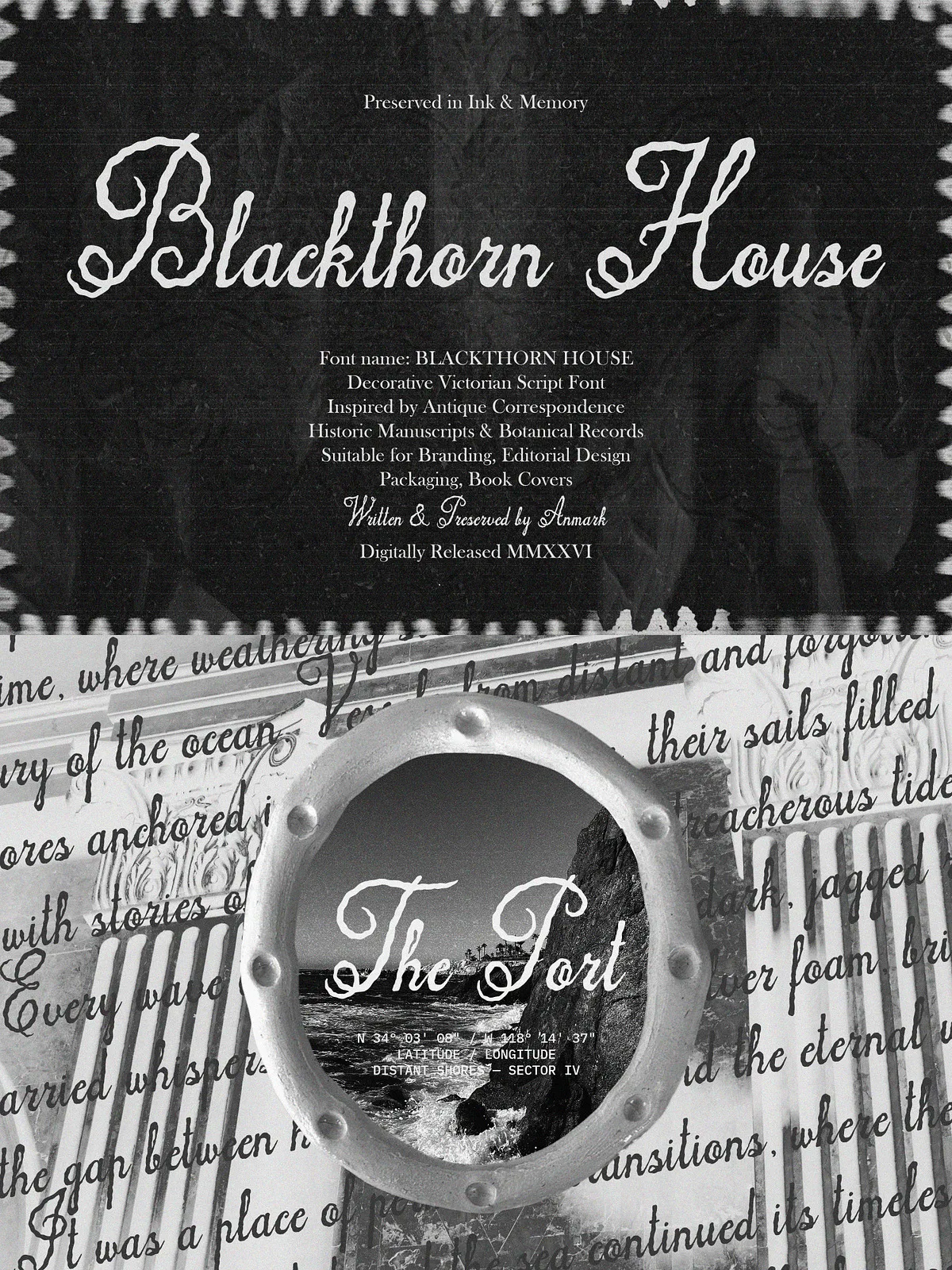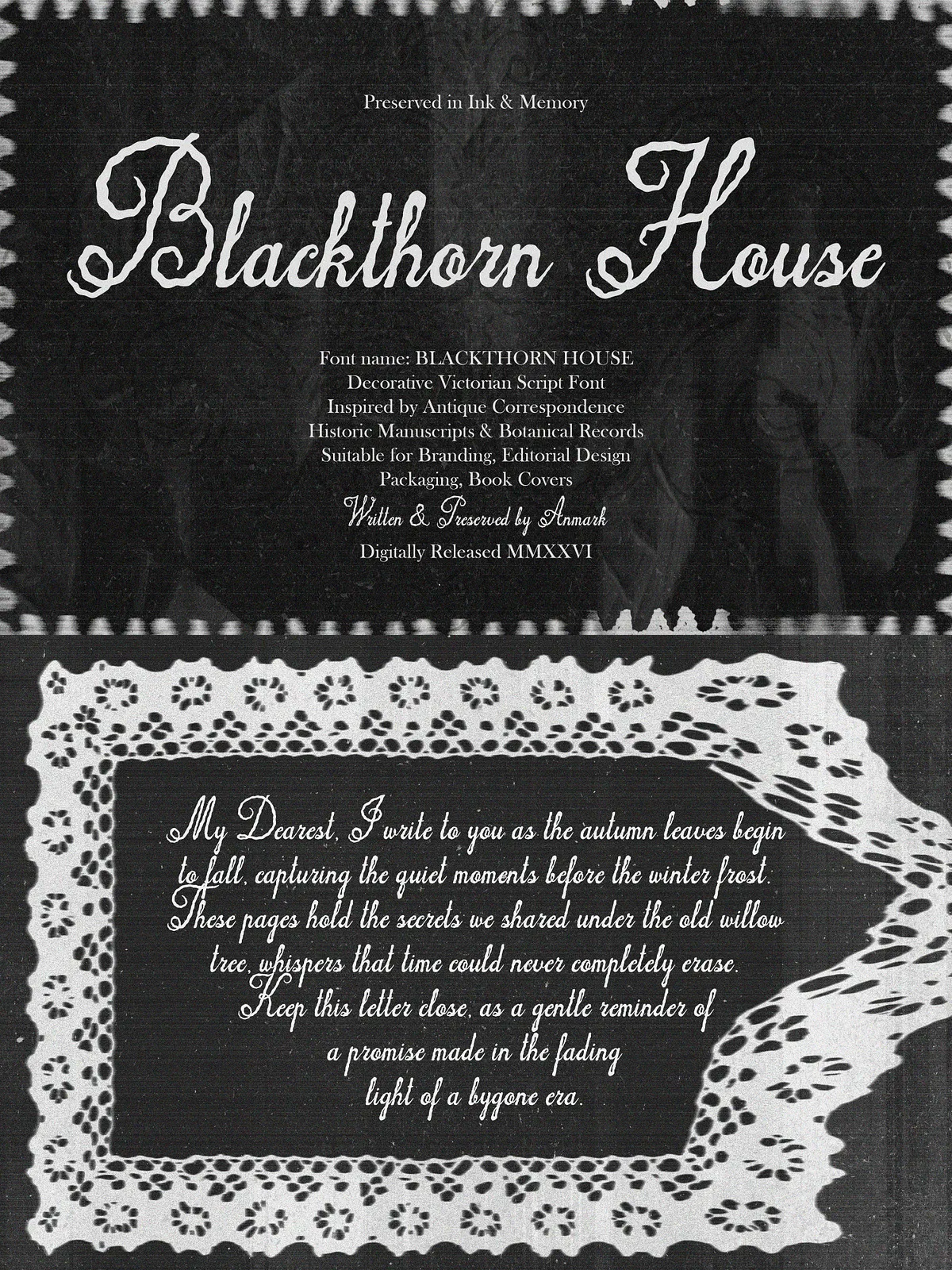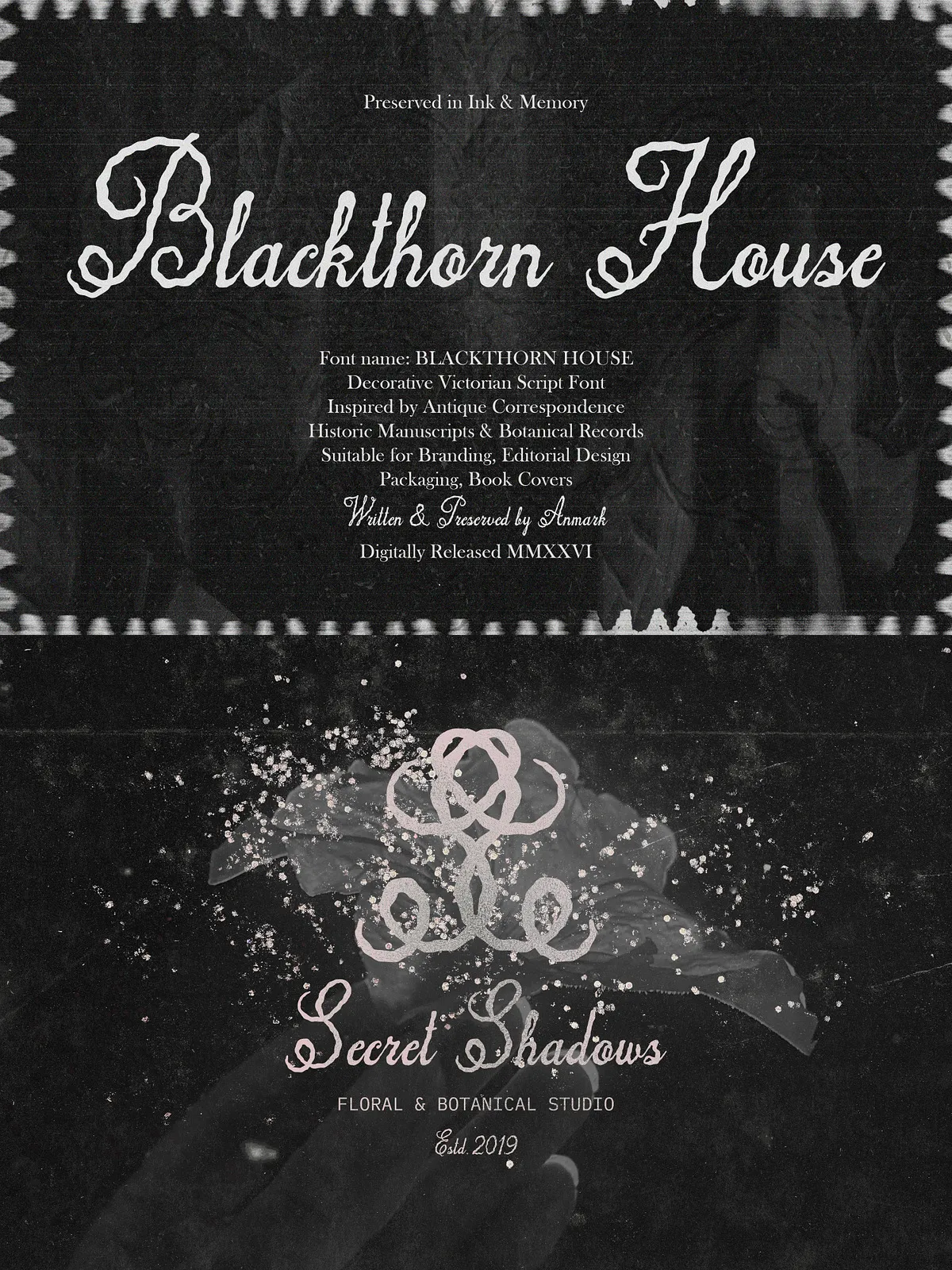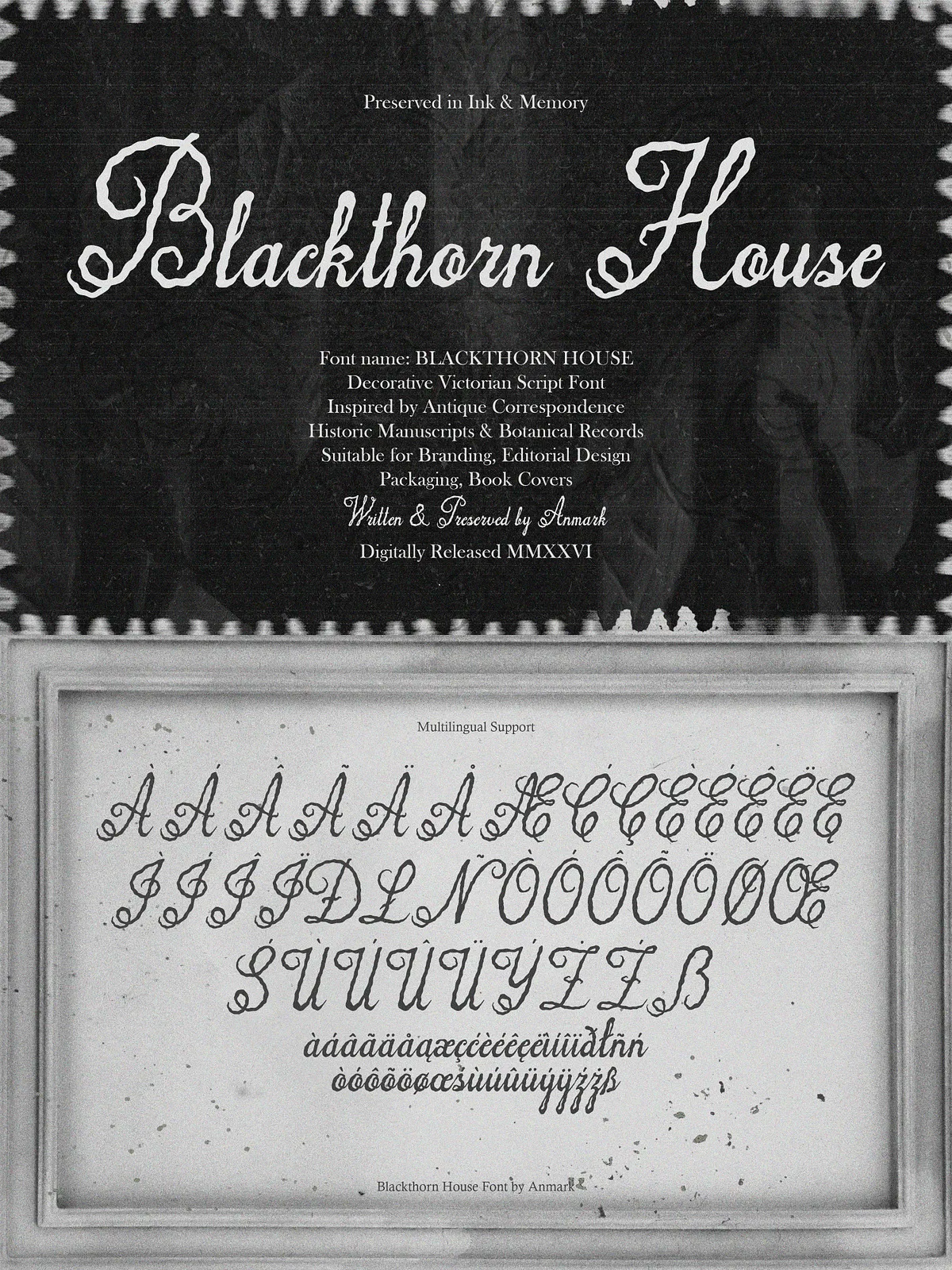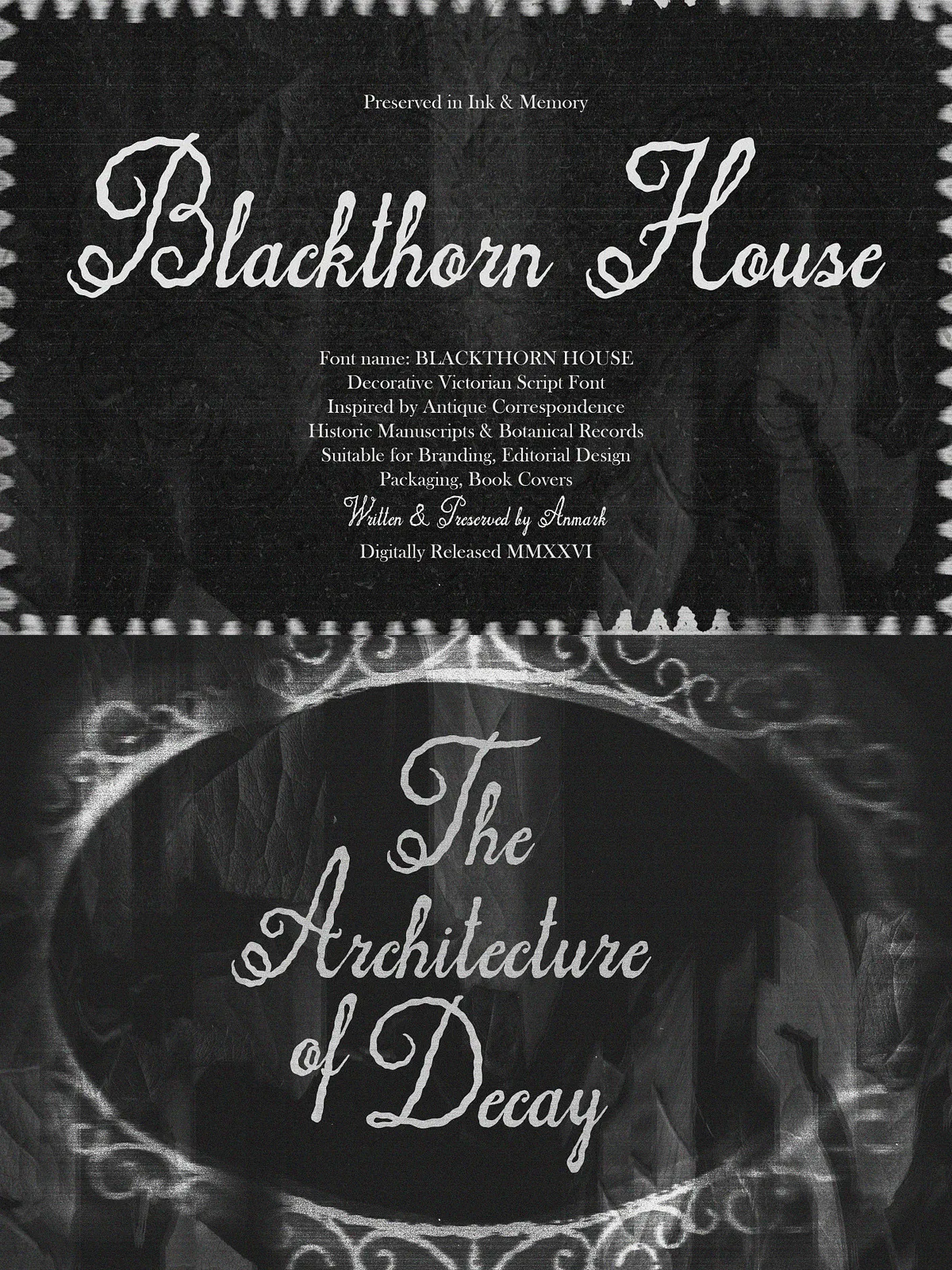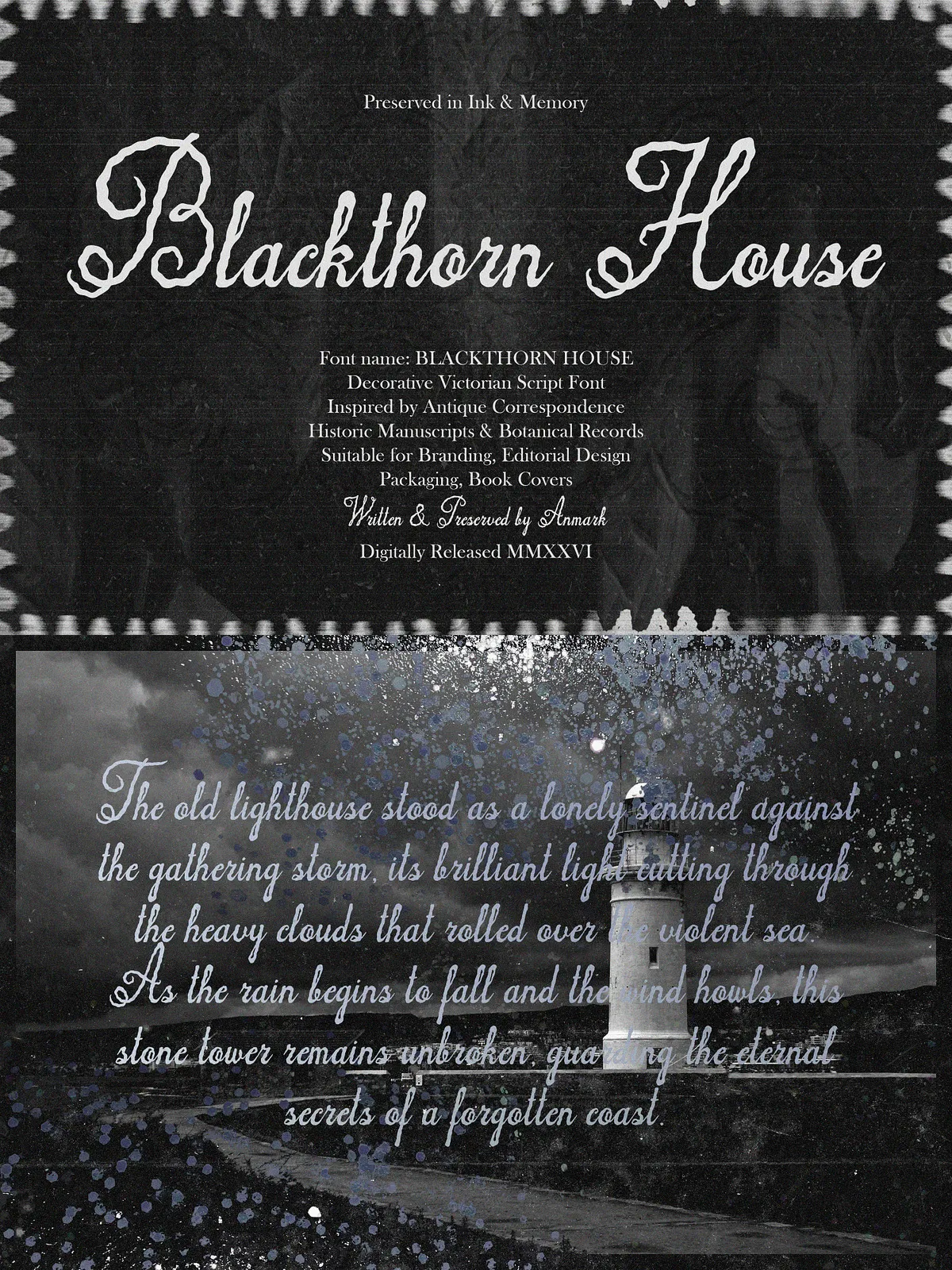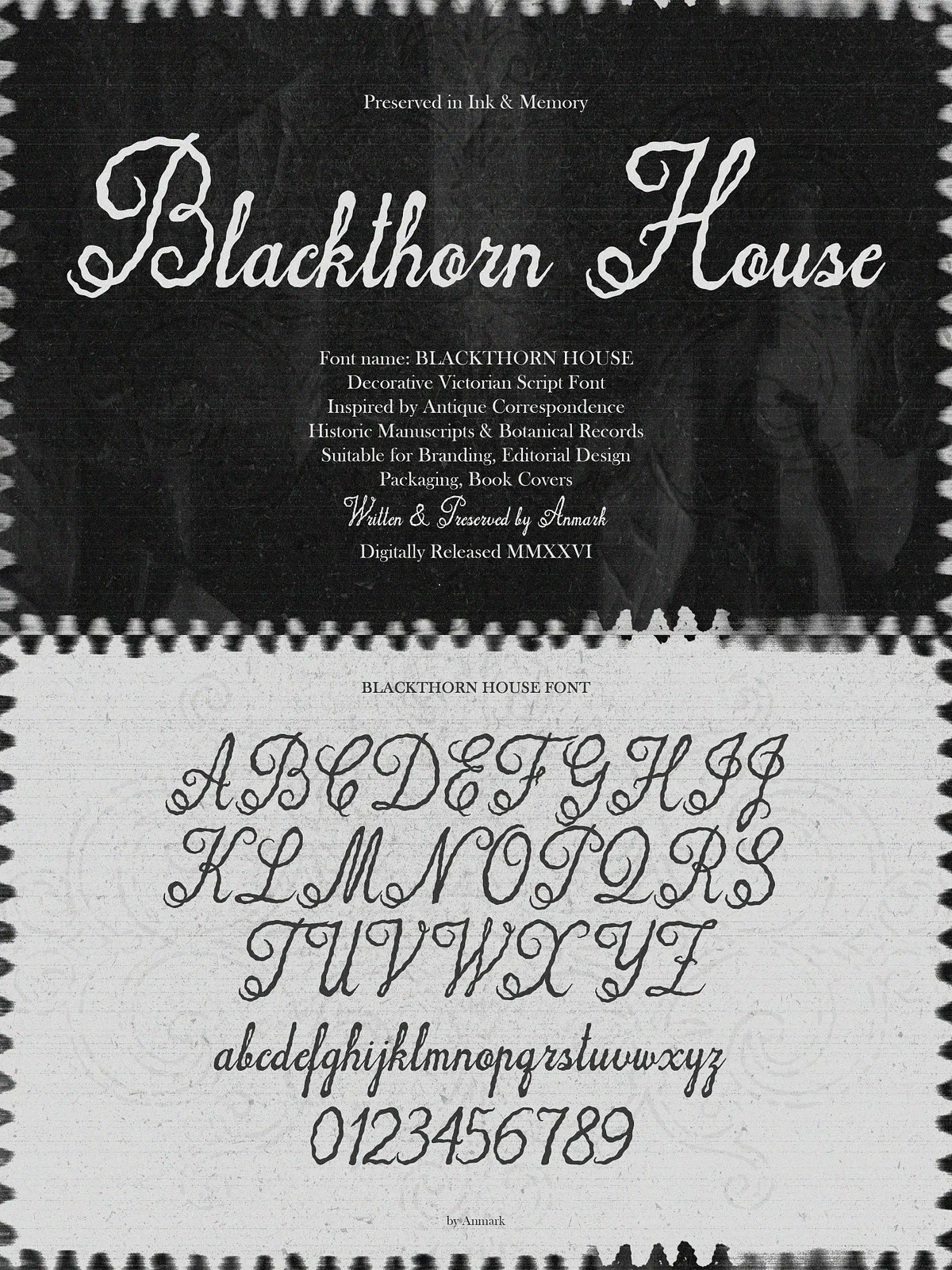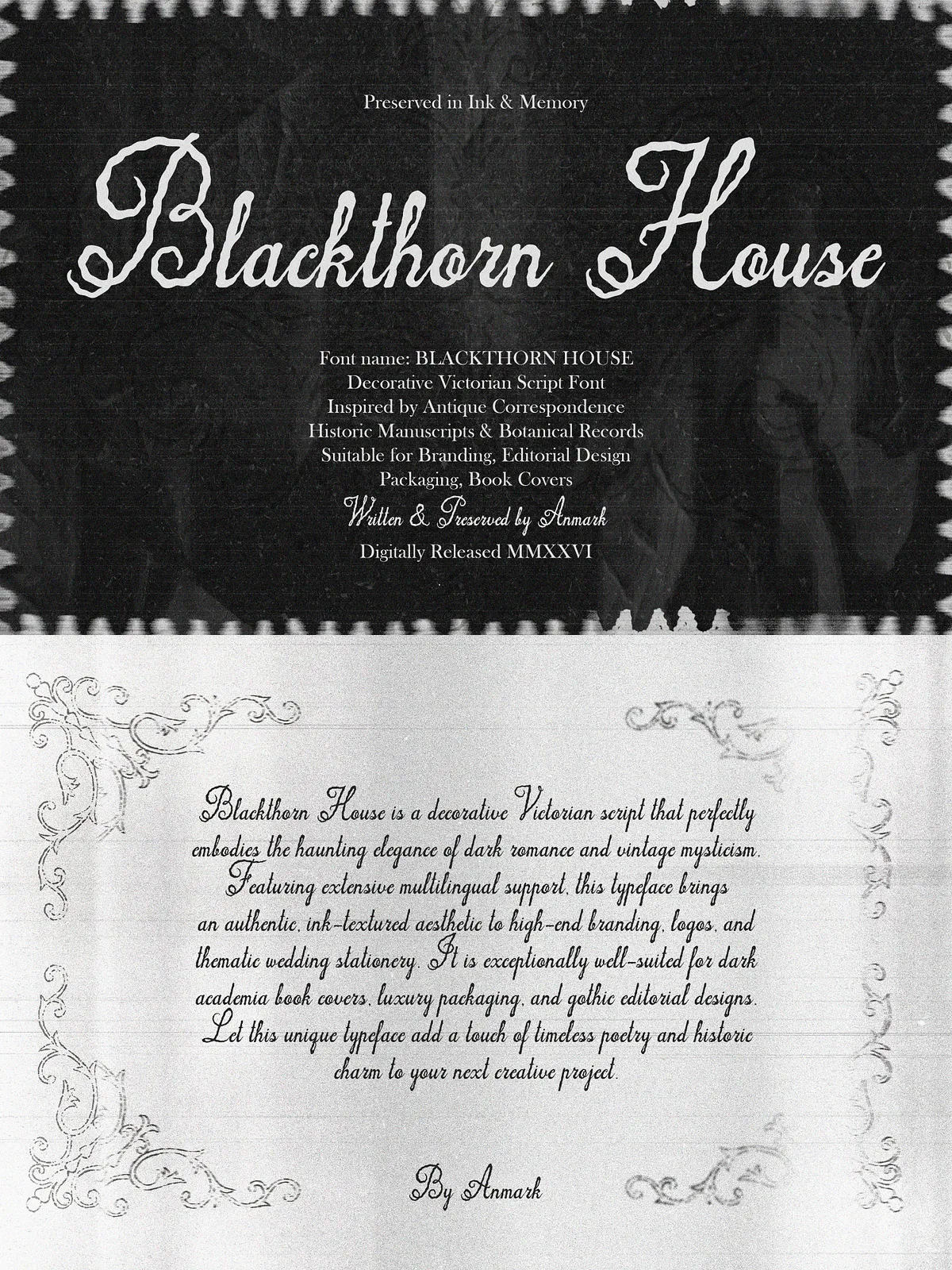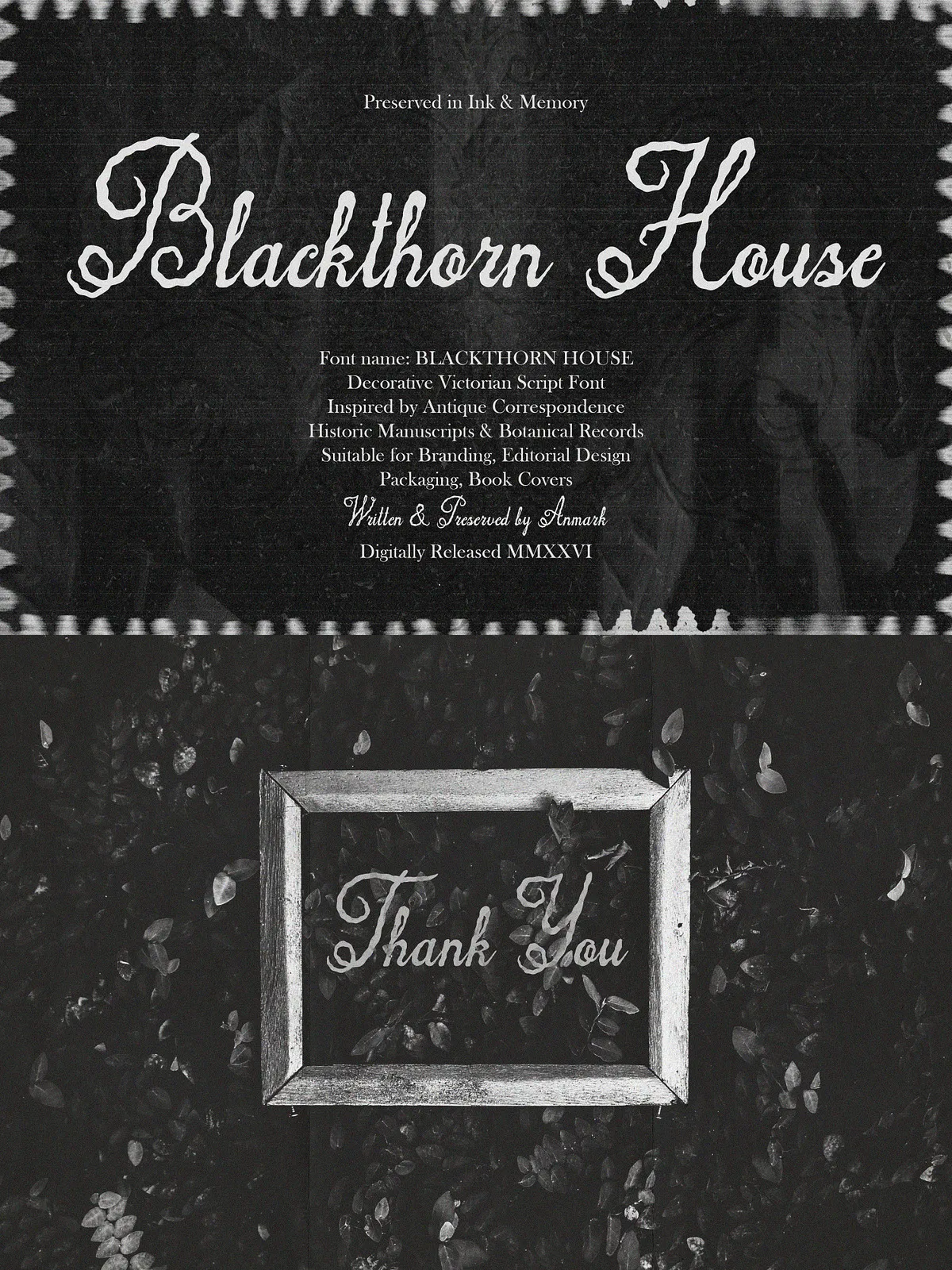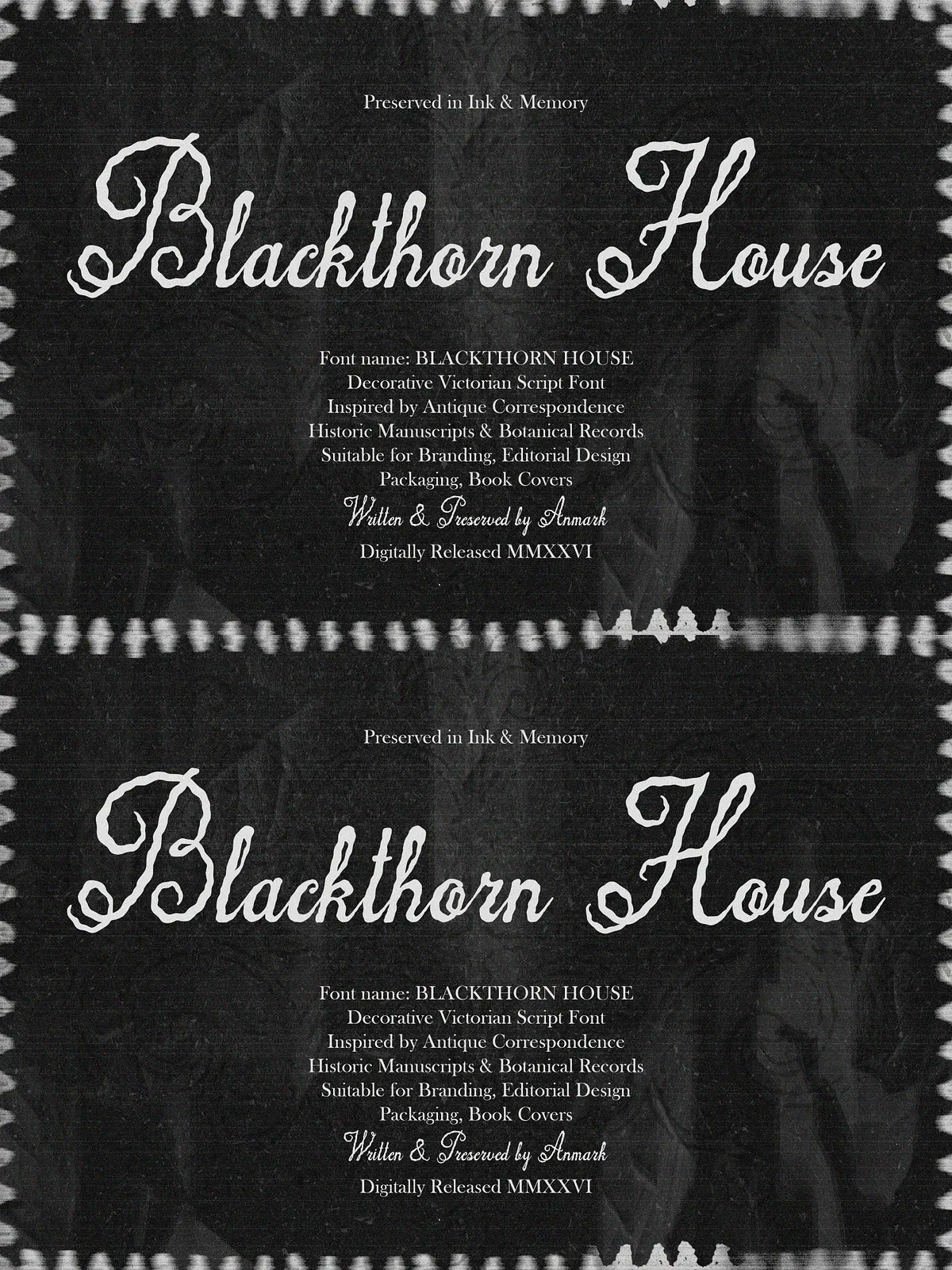
Blackthorn House draws direct inspiration from antique correspondence, historic manuscripts, and botanical records. The design channels dark romance and vintage mysticism through ink-textured strokes and slightly irregular edges that read as handcrafted and authentic. Majestic capitals and flowing connections create a strong display voice that commands attention while preserving readability at headline sizes.
Design Intent
The typeface intends to evoke narrative mood and historical depth. It balances decorative flourish with practical spacing so designers can deploy it in high-impact roles—logos, mastheads, and packaging—without sacrificing visual hierarchy. Blackthorn House performs as both a characterful headline face and an evocative identity asset.
Key Visual Features
Distinctive Letterforms
- Handcrafted ink-textured terminals and slightly imperfect stroke endings that capture historical authenticity.
- Ornate uppercase characters featuring elegant swashes and dramatic ascenders for expressive wordmarks.
- Fluid connections and natural rhythm in lowercase forms for cohesive headline treatments.
- Subtle contrast between thick and hairline strokes that enhances tension and vintage appeal.
Technical Quality
- Optimized kerning and spacing suitable for print and digital display.
- Extensive multilingual glyph set covering Western, Central, and South European languages.
Recommended Uses
High-End Branding & Logos
Use Blackthorn House to sculpt unforgettable brand identities for boutique labels, perfume packaging, wine bottles, and apothecary-style shops. The decorative capitals serve as distinctive logotype anchors while the lowercase supports short display copy and product names.
Thematic Wedding Stationery
Design elegant wedding suites, invitations, and RSVP cards with a gothic-romance or cottagecore aesthetic. Combine Blackthorn House with a neutral sans or a low-contrast serif to preserve legibility across body copy and envelope lines.
Editorial & Book Covers
Apply the script to Dark Academia novels, historical fiction, fantasy titles, and poetry collections. The font’s textured rhythm delivers atmosphere and narrative weight on covers and feature headings.
Packaging & Product Design
Elevate craft product packaging, tea tins, luxury merchandise, and boutique labels. Blackthorn House brings artisanal charm and perceived value, especially when paired with textured paper or foil stamping.
Practical Guidance
Pairing Suggestions
Pair Blackthorn House with a neutral humanist sans for clean body text or with a restrained serif for editorial contexts. Reserve the script for headlines, wordmarks, subheads, and decorative labels; use the companion face for long-form text to maintain hierarchy and legibility.